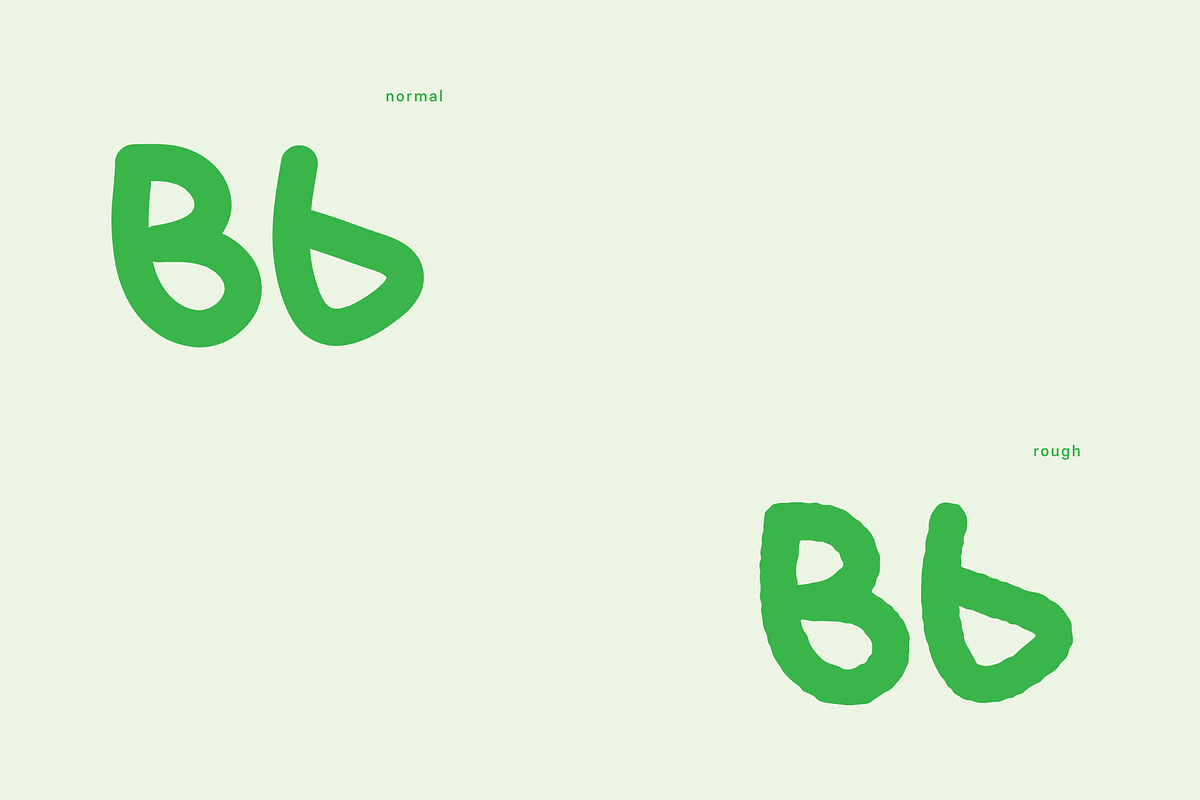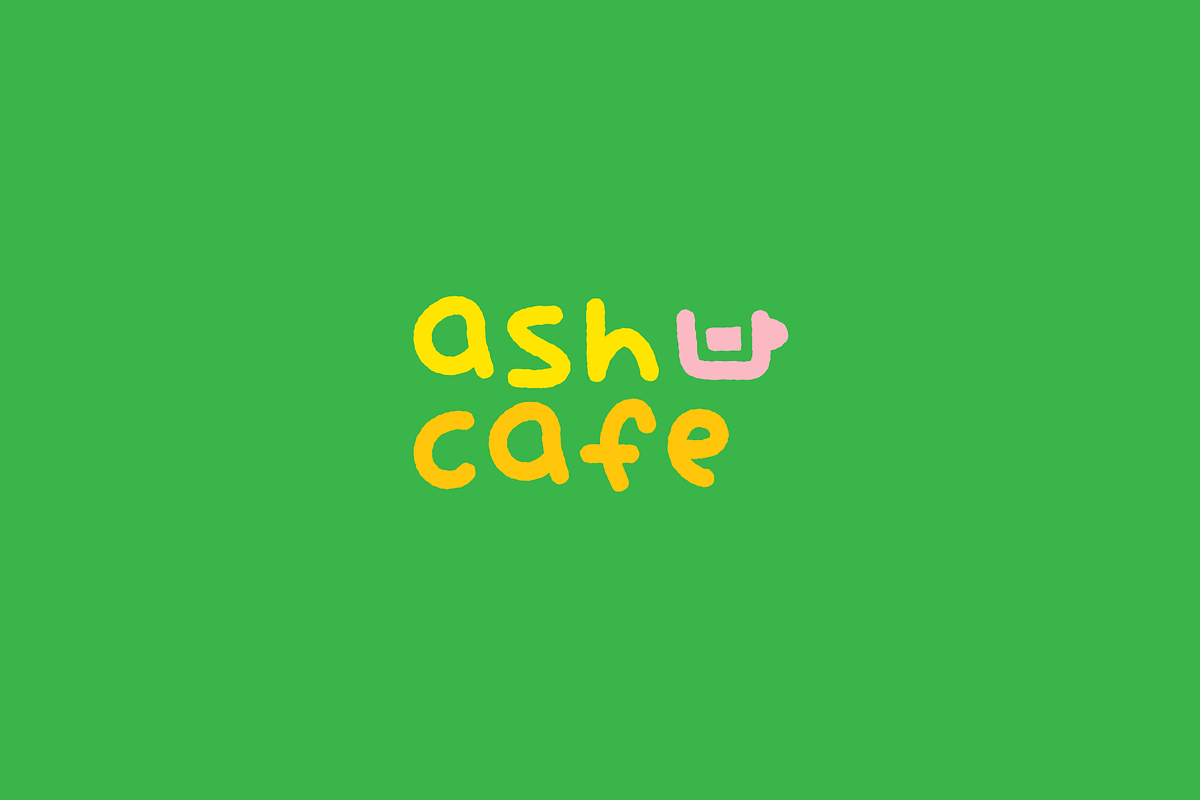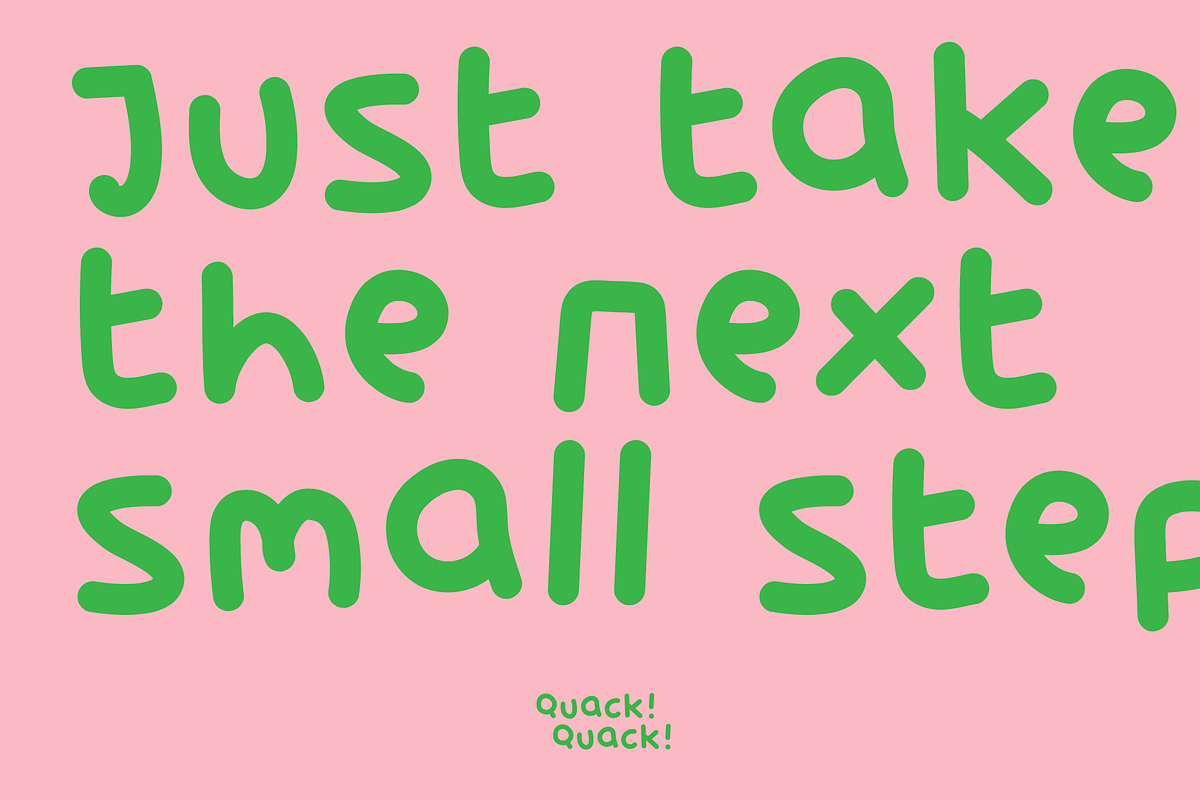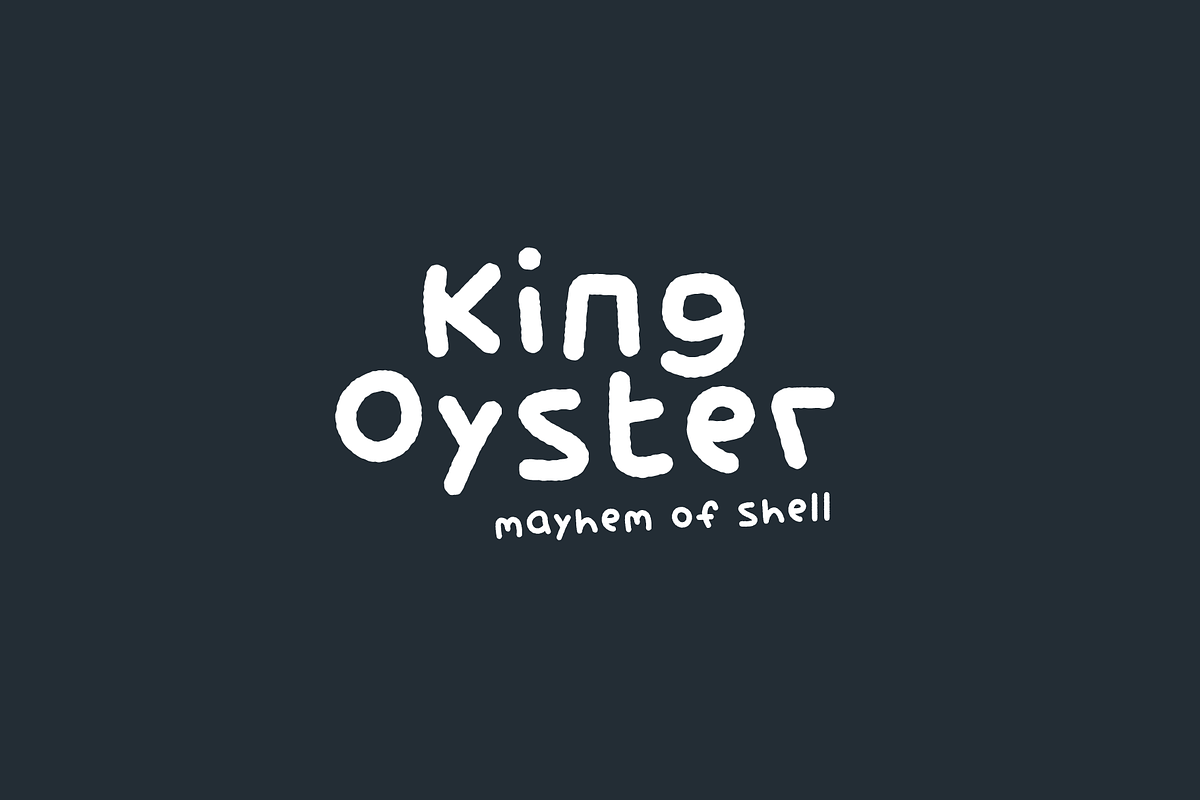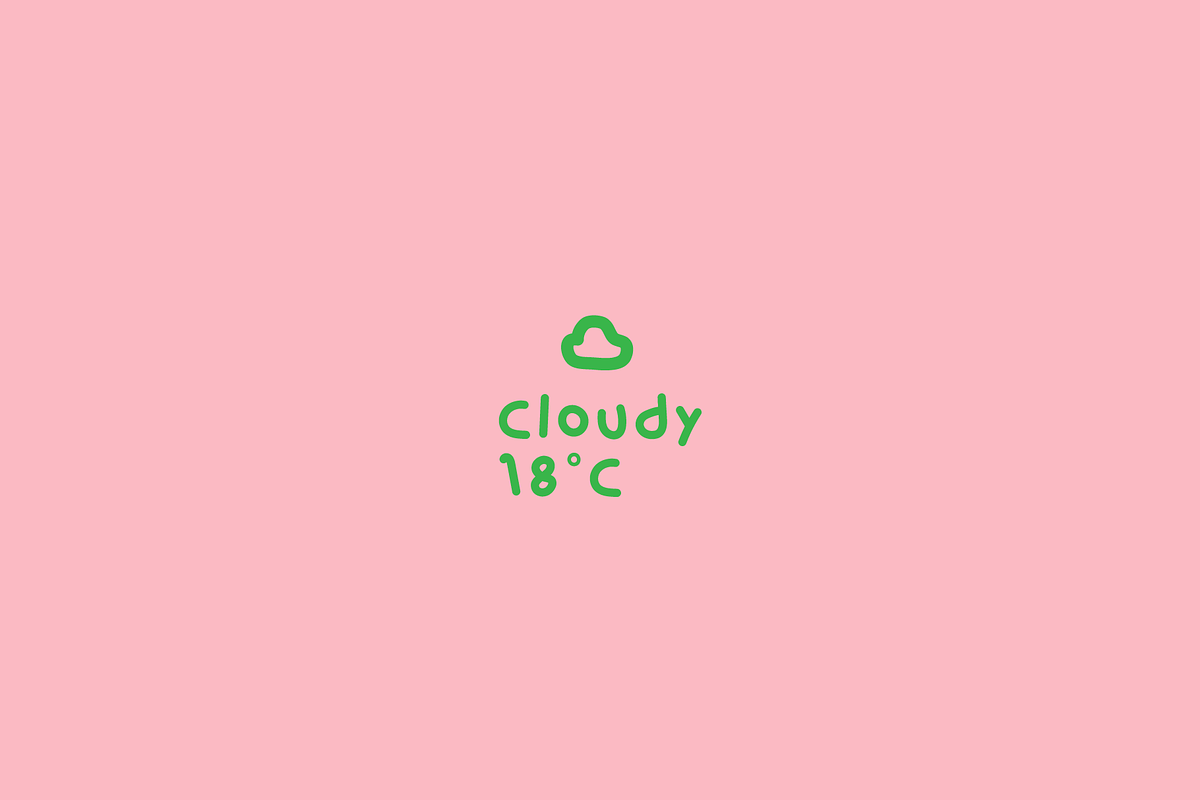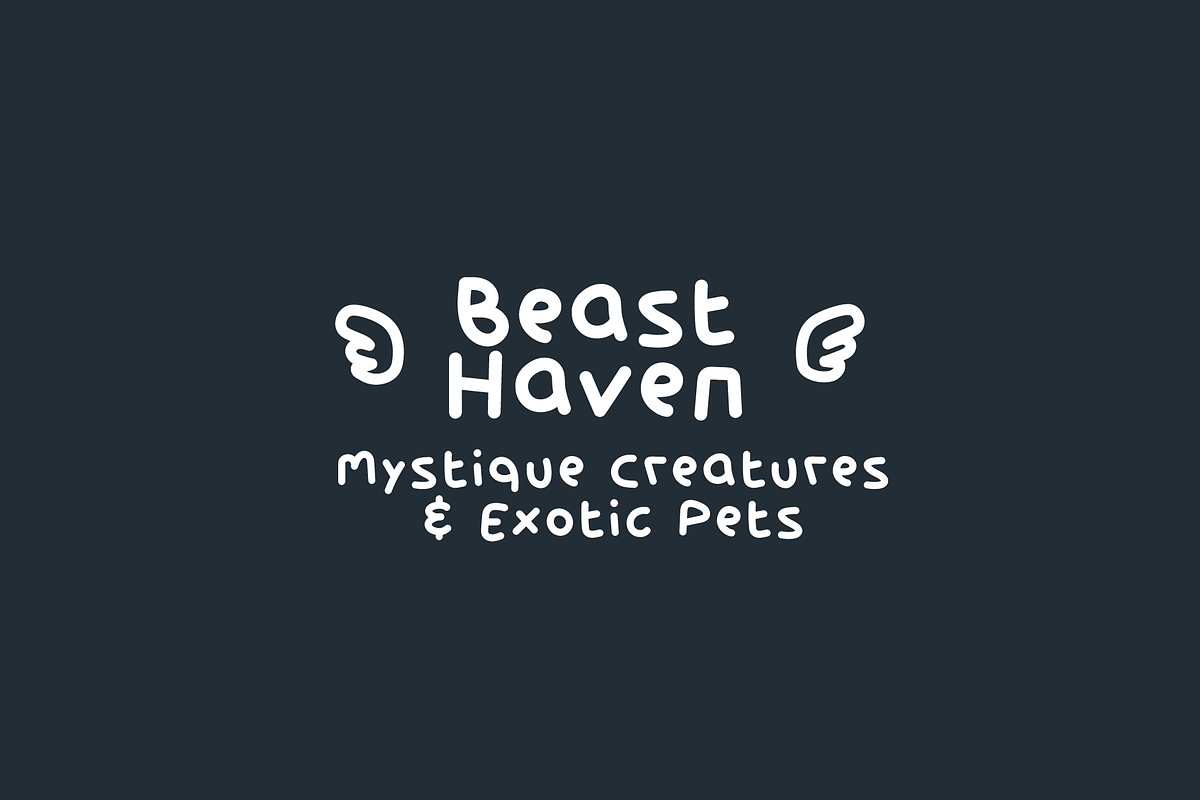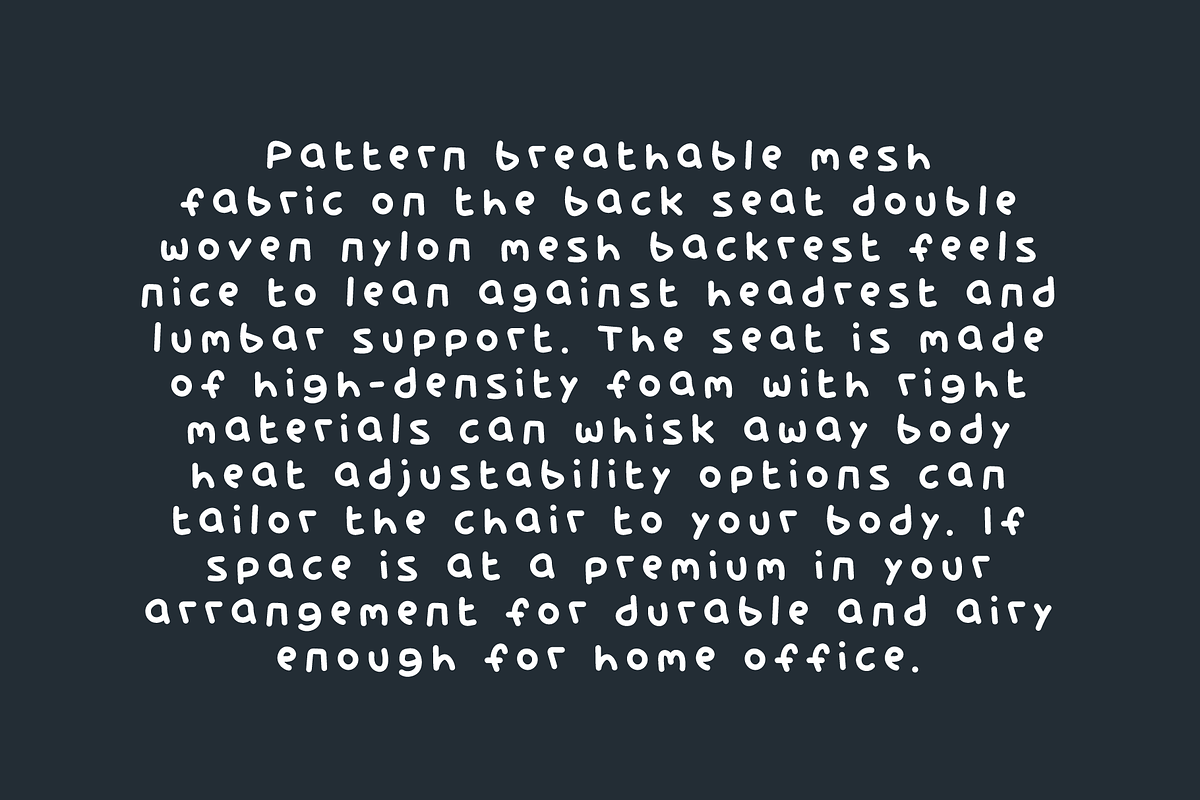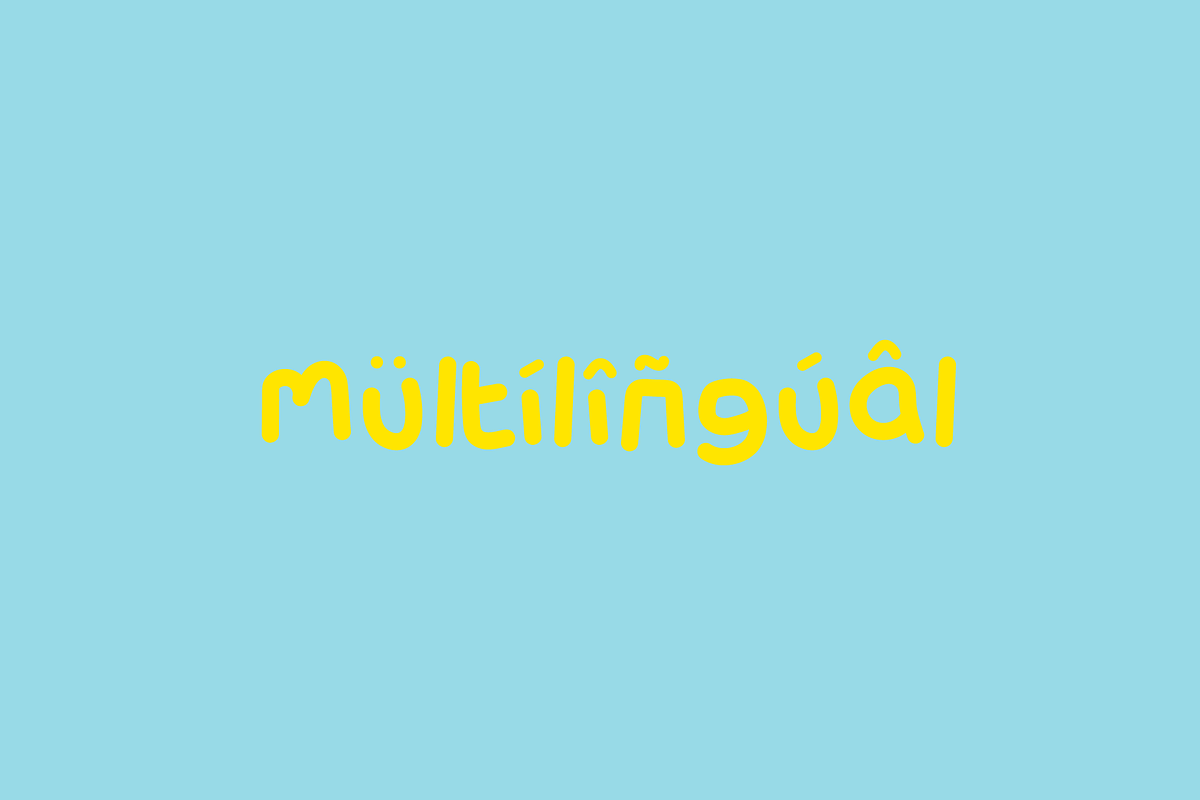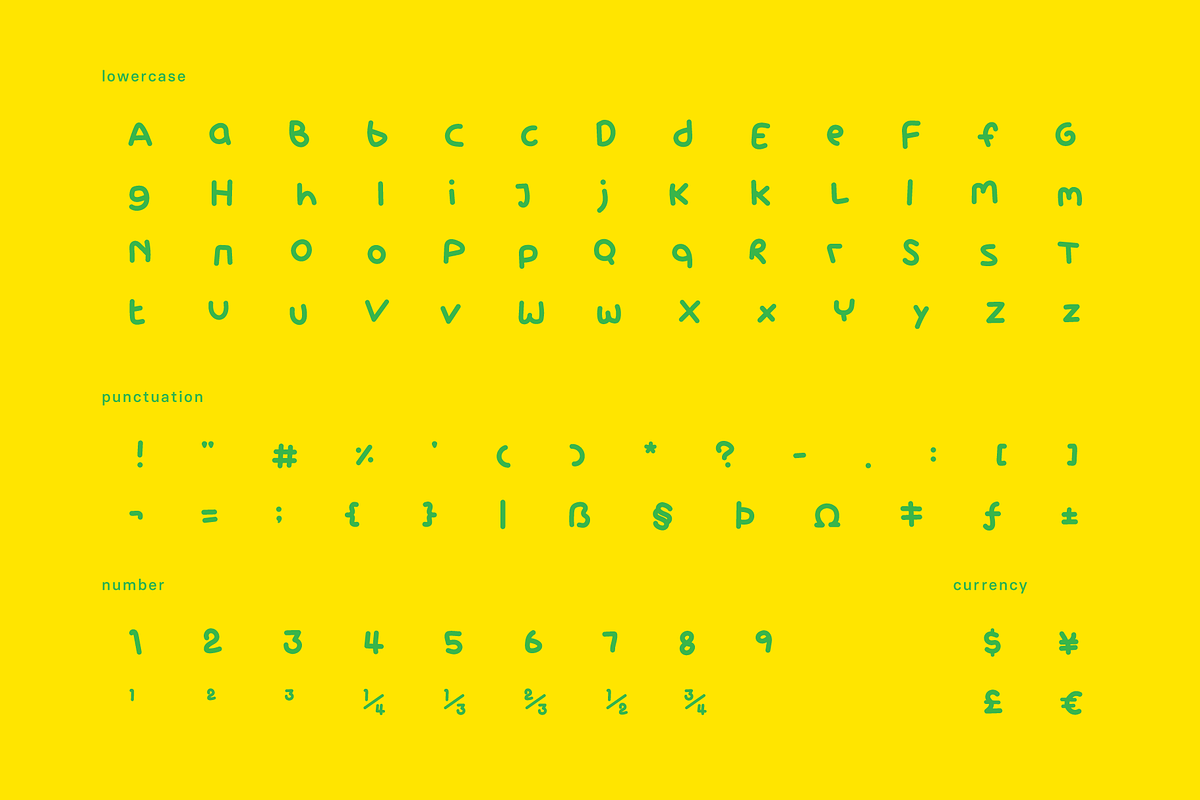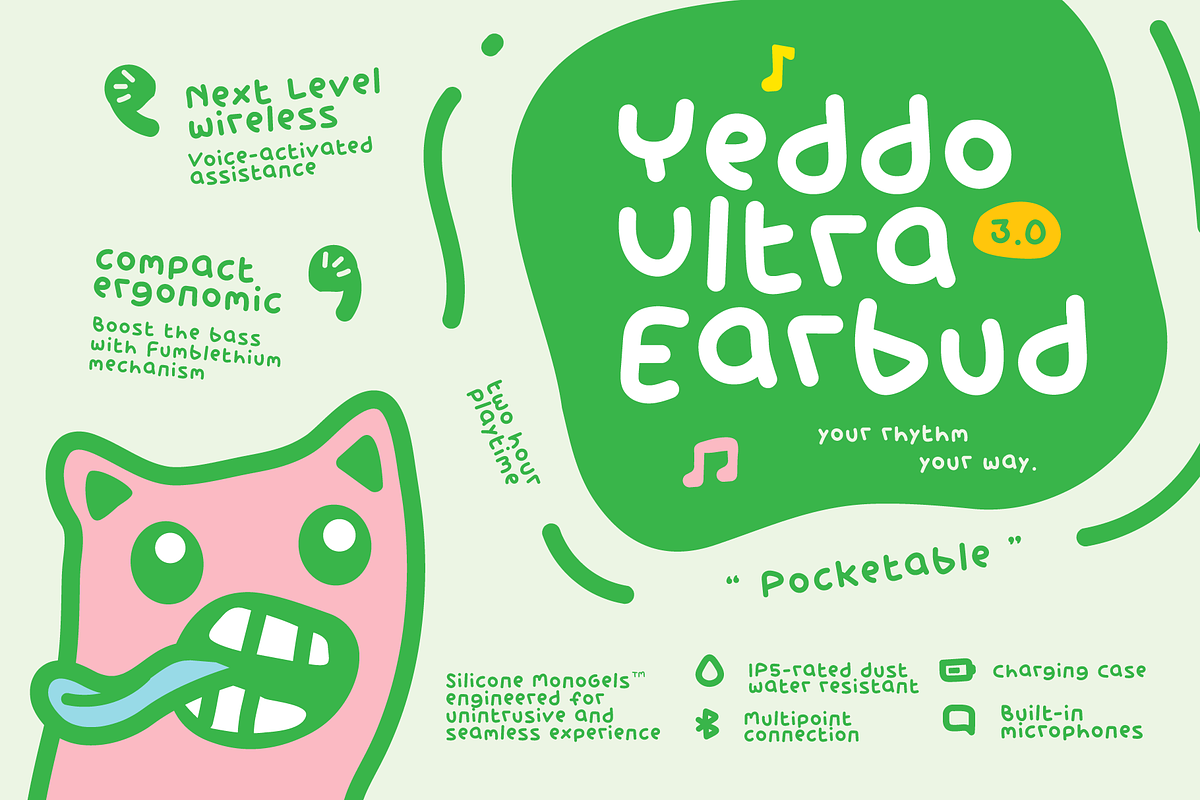
Phasma Geo Font
Pharma Geo is a rhapsody guileless handwritten typeface apt for headline, editorial, branding, packaging, printed materials and typographic applications. 200+ glyphs including punctuation and numerical.